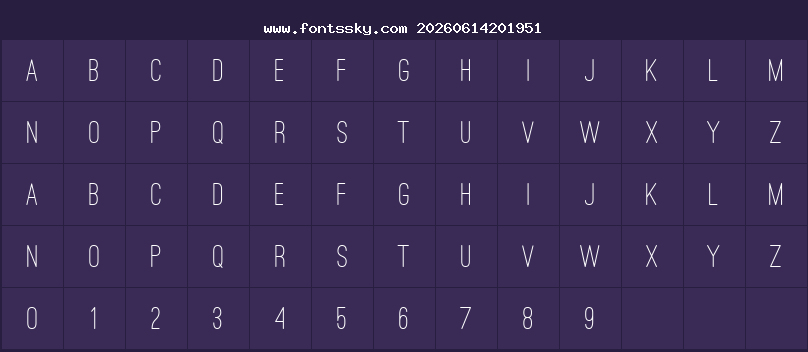
Ostrich Sans Rounded Preview
• Font Name: Ostrich Sans Rounded
• Full Font Name: Ostrich Sans Rounded Medium
About Ostrich Sans Rounded.ttf
Ostrich Sans Rounded.ttf is a modern, elegant sans-serif font designed for ultimate readability and visual harmony. Perfect for branding, headlines, web design, and print materials.